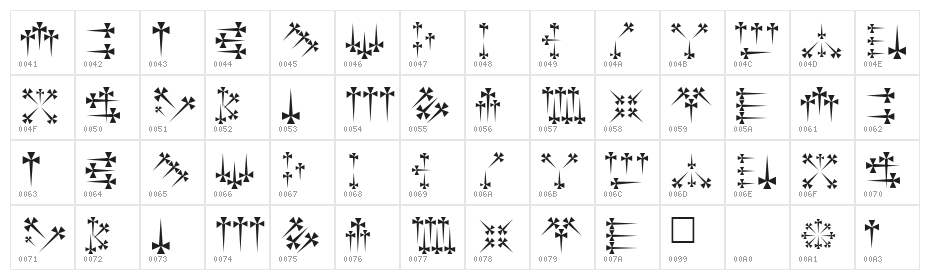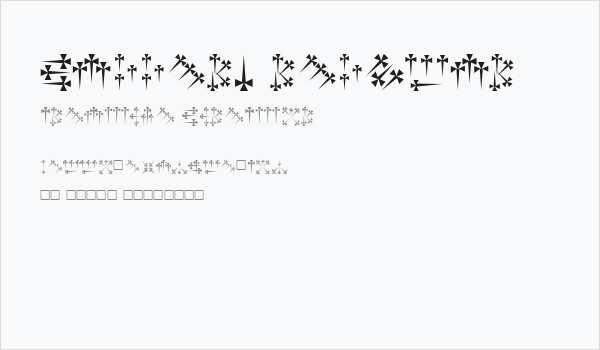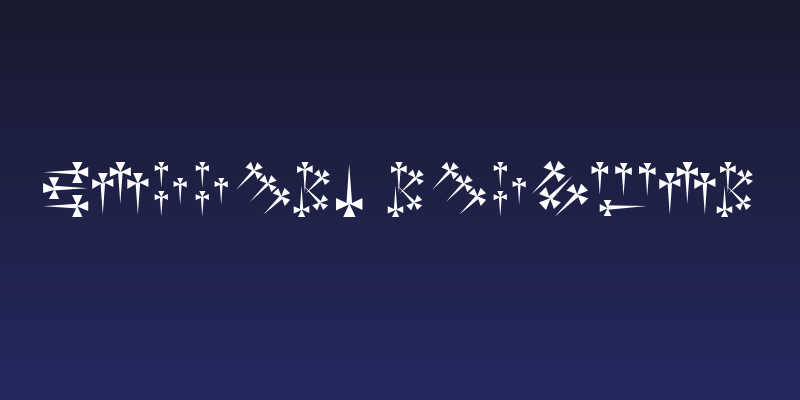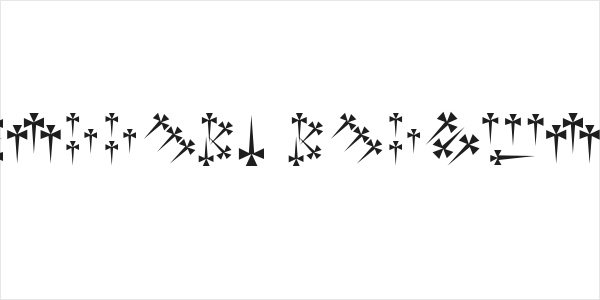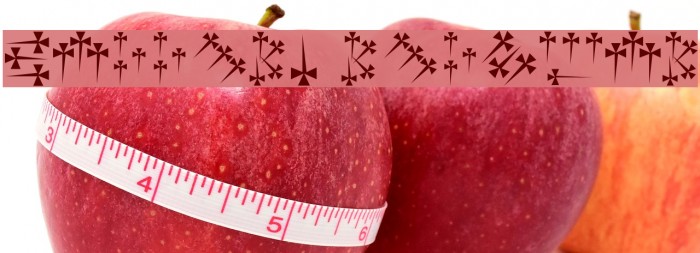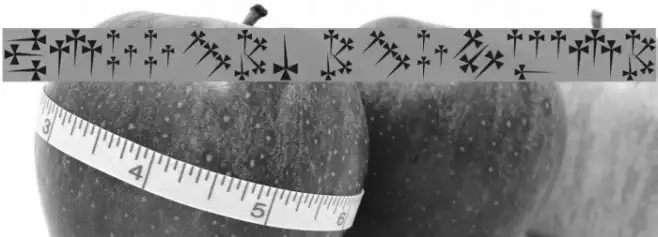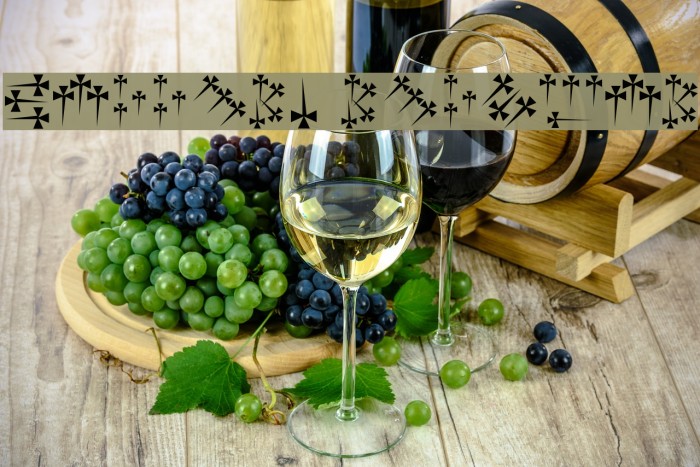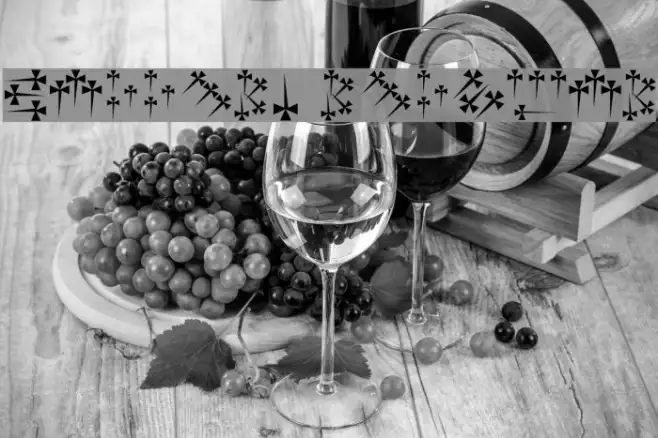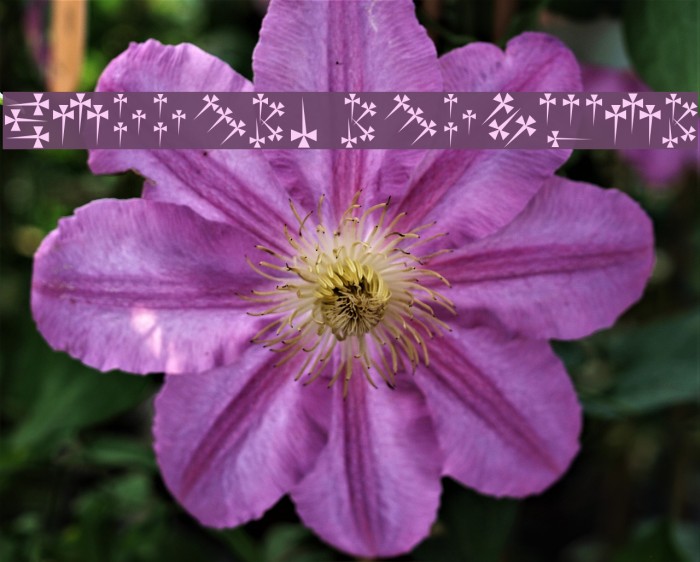
Daggers Regular Font
Daggers Regular Description
This font features a highly decorative and unique style, characterized by sharp, angular shapes that resemble daggers or blades. Each character is composed of intricate geometric patterns, giving it a striking and edgy appearance. The design is bold and eye-catching, making it suitable for projects that require a strong visual impact. The characters are consistent in their angular motif, creating a cohesive and distinctive look across the entire set. This font is not suitable for body text due to its complex design but excels in creative and artistic applications.
| Use Case | Logos, Headlines, Posters |
| Proposed Projects | Ideal for use in posters, album covers, video game graphics, or any project requiring a dramatic and artistic flair. |